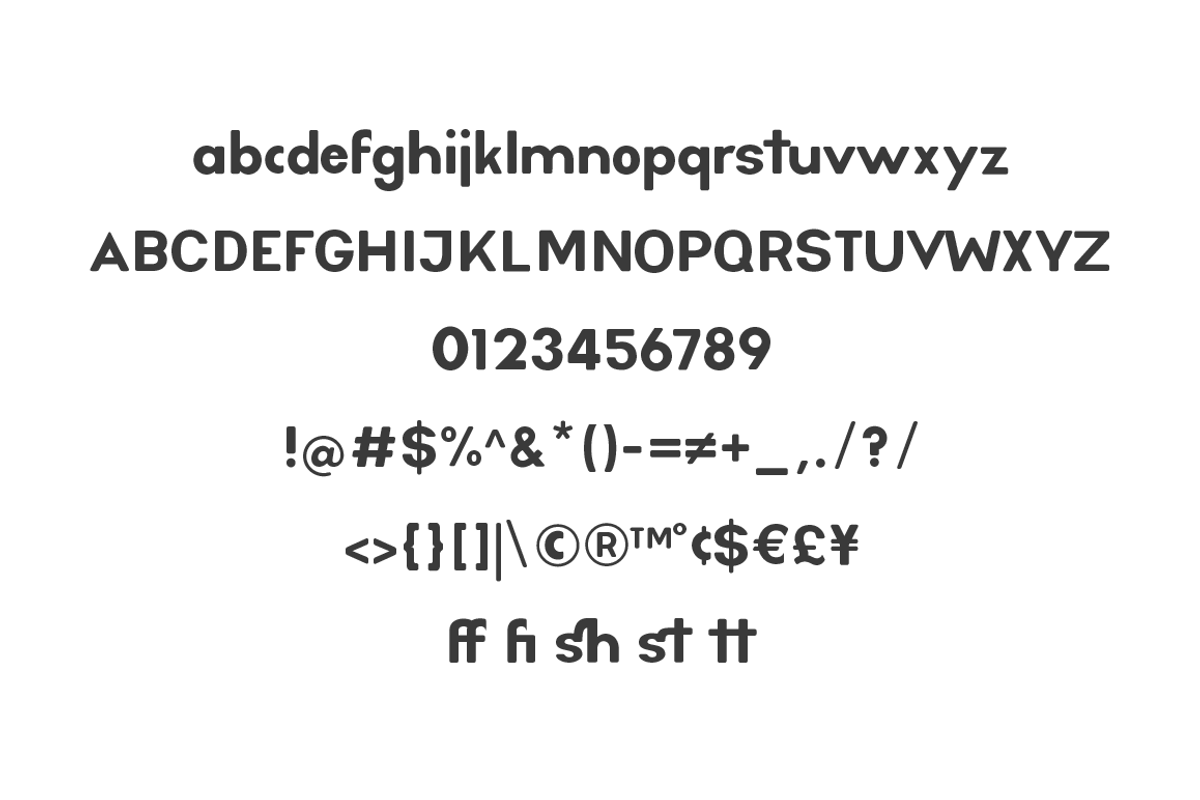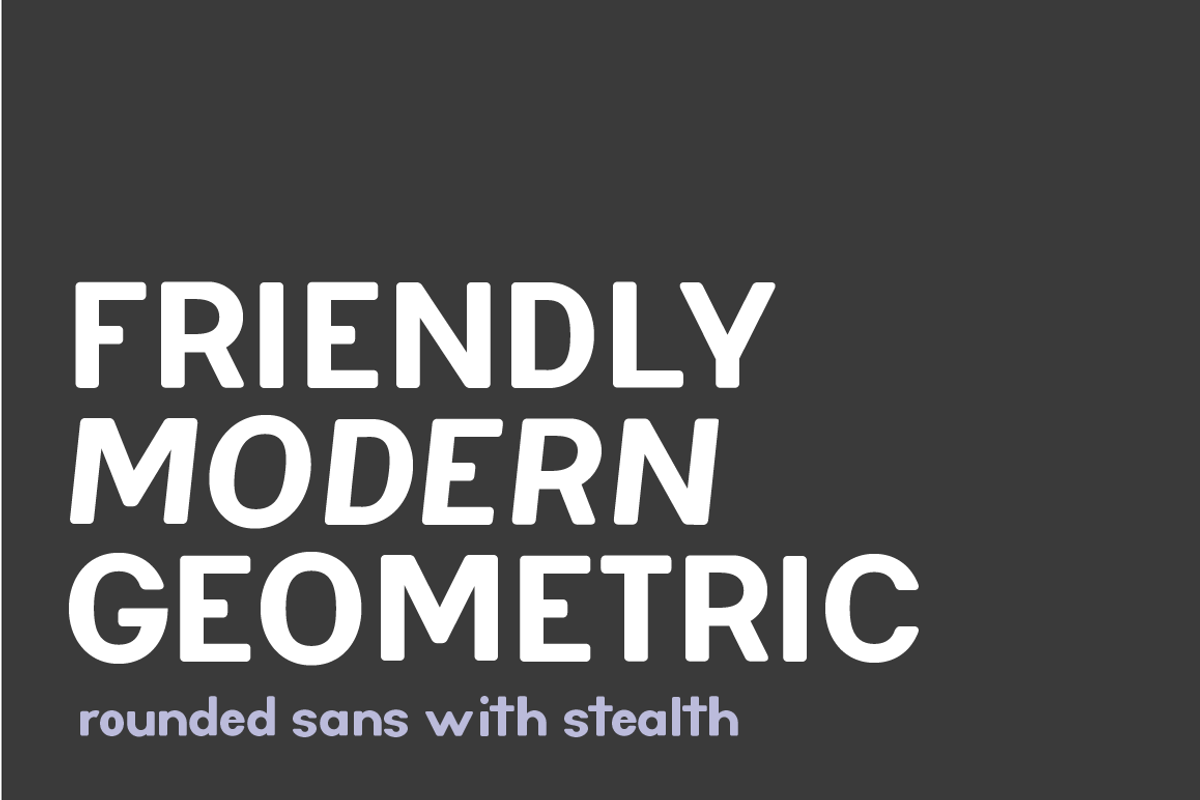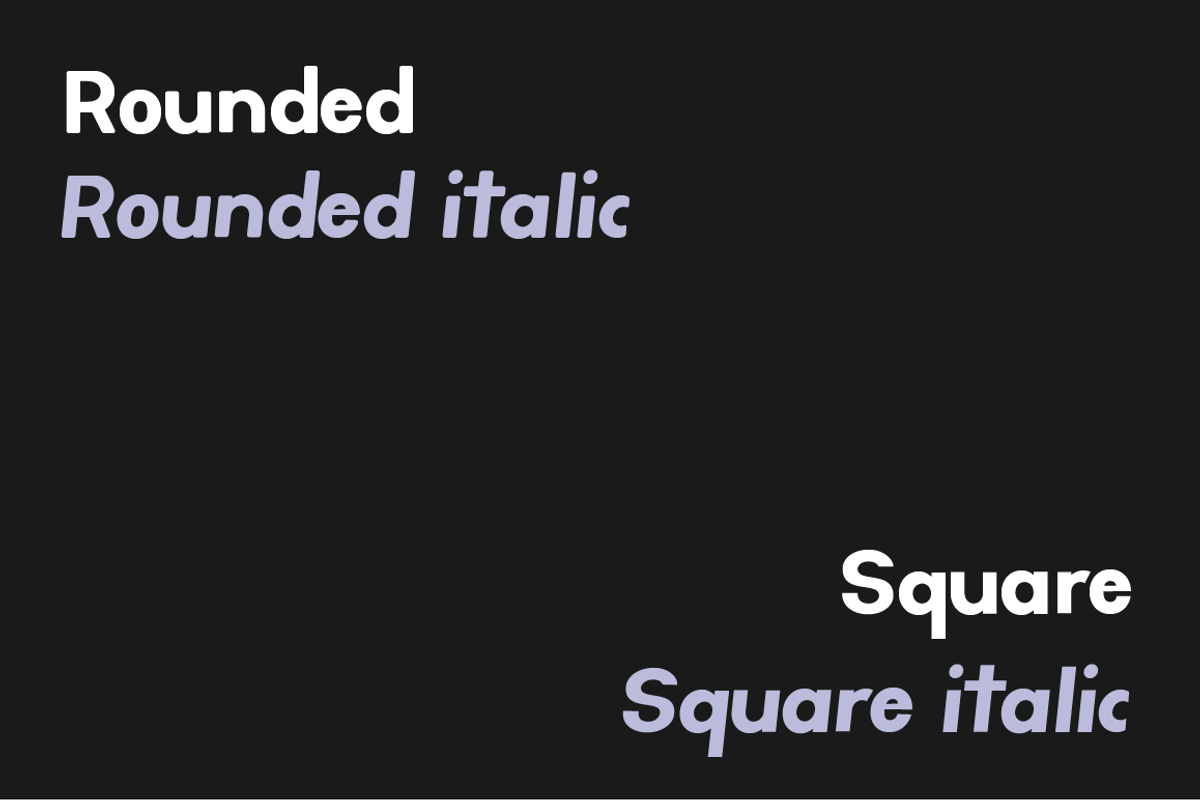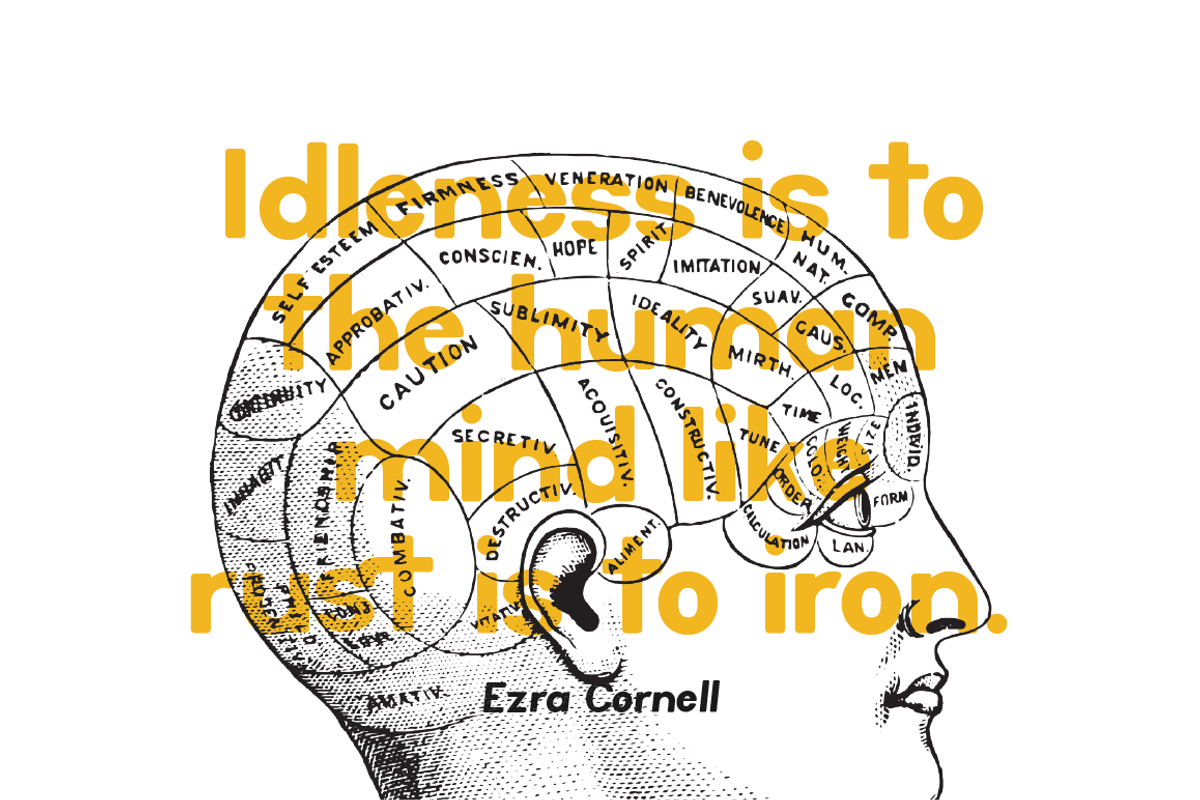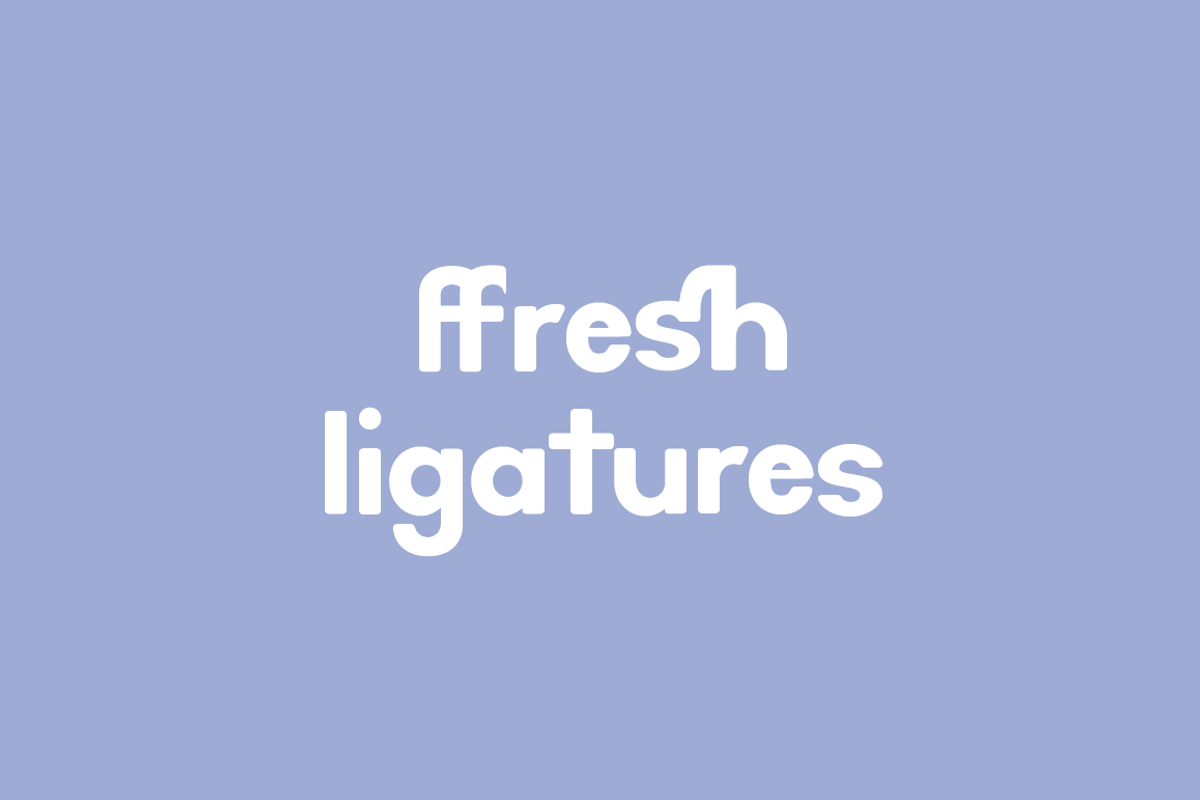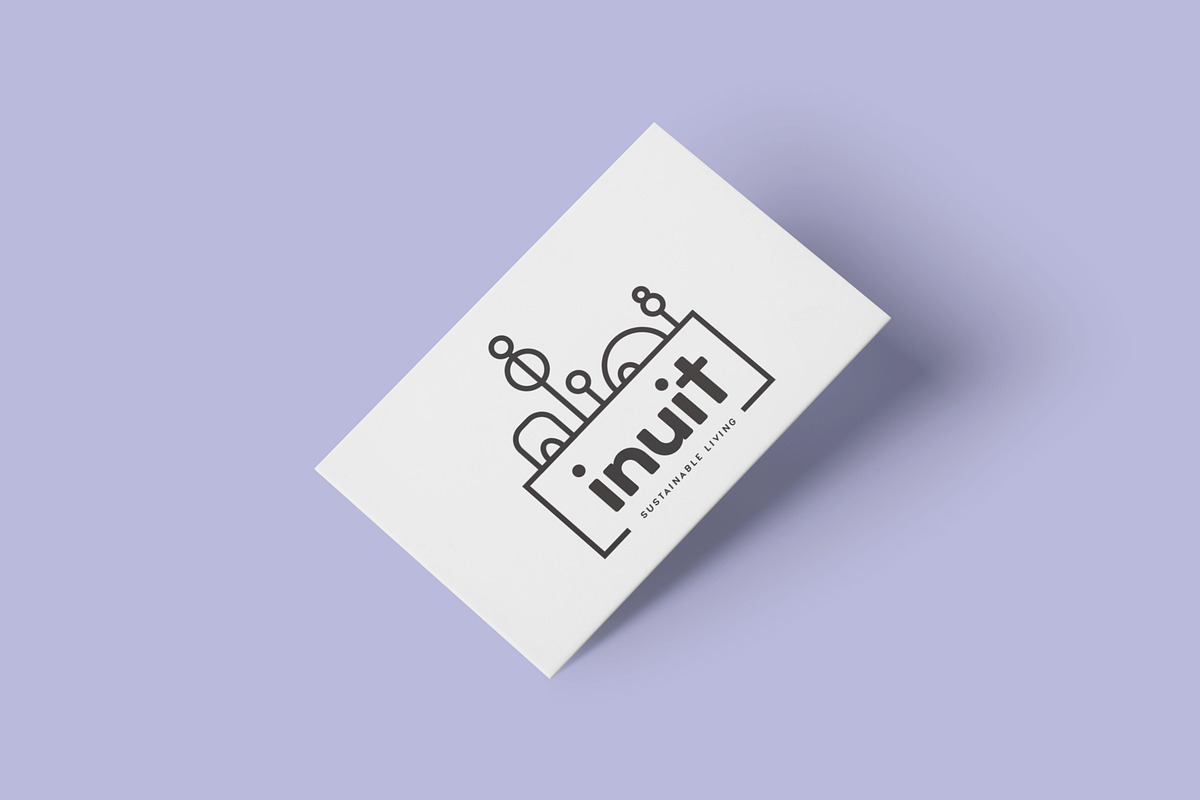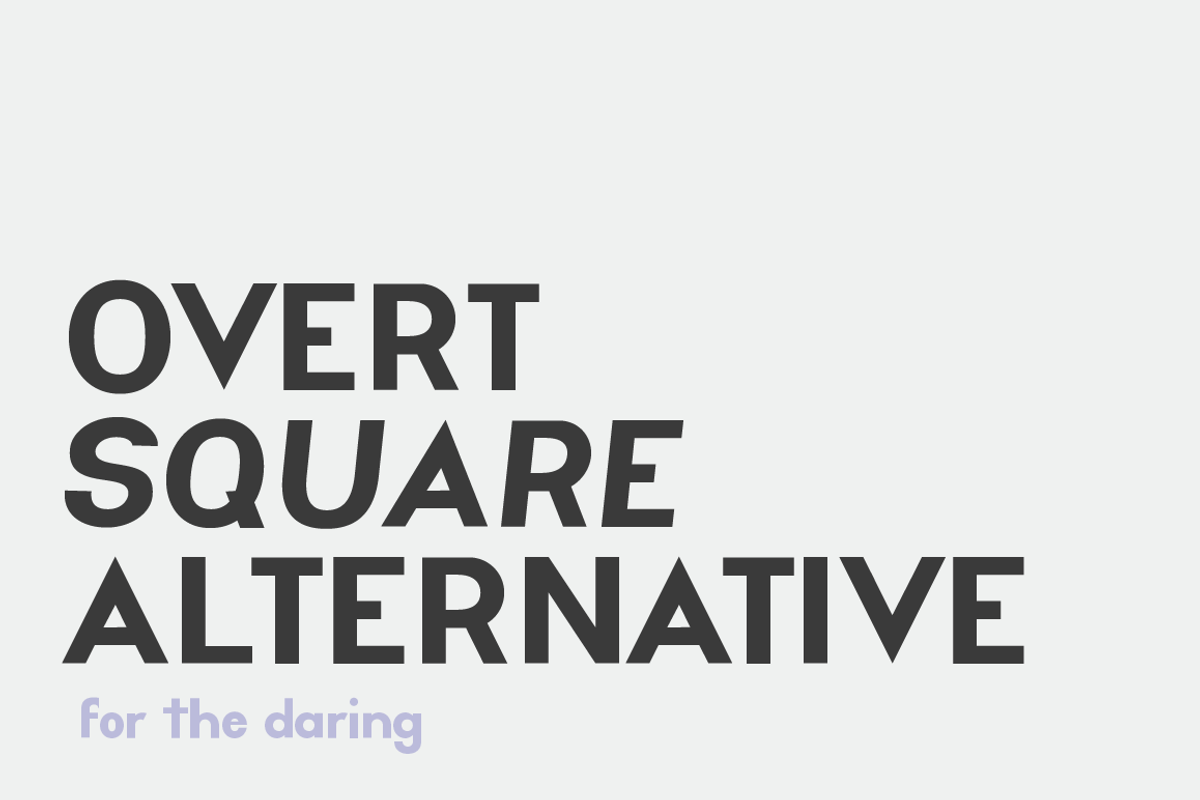
Little Ninja Font
Introducting Little Ninja!
Friendly yet stealthy, Little Ninja is a geometric sans with plenty of character.
Little Ninja comes in the regular rounded version with italics as well as a sharper, square version with italics - perfect for when you need a little extra punch!
Uppercase, lowercase, italics, numerical, punctuation, common glyphs and ligatures